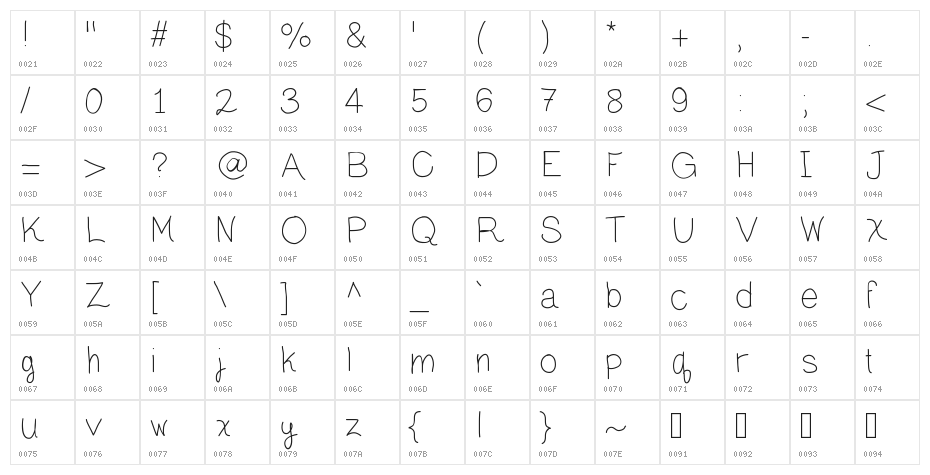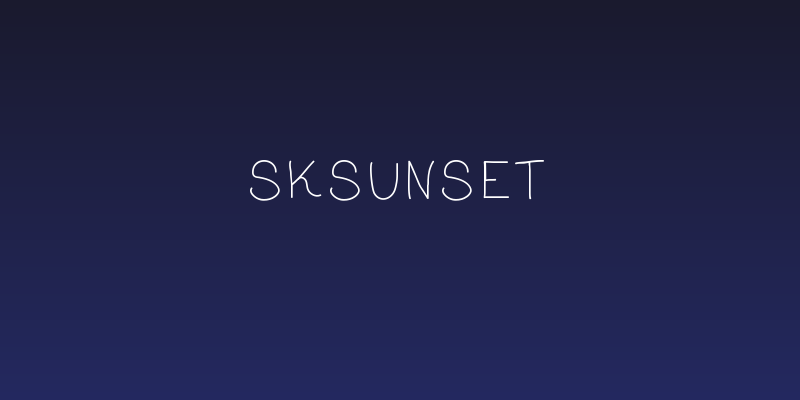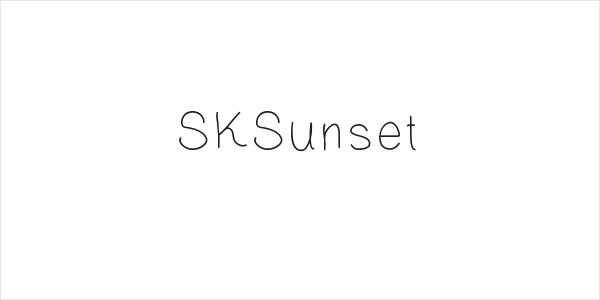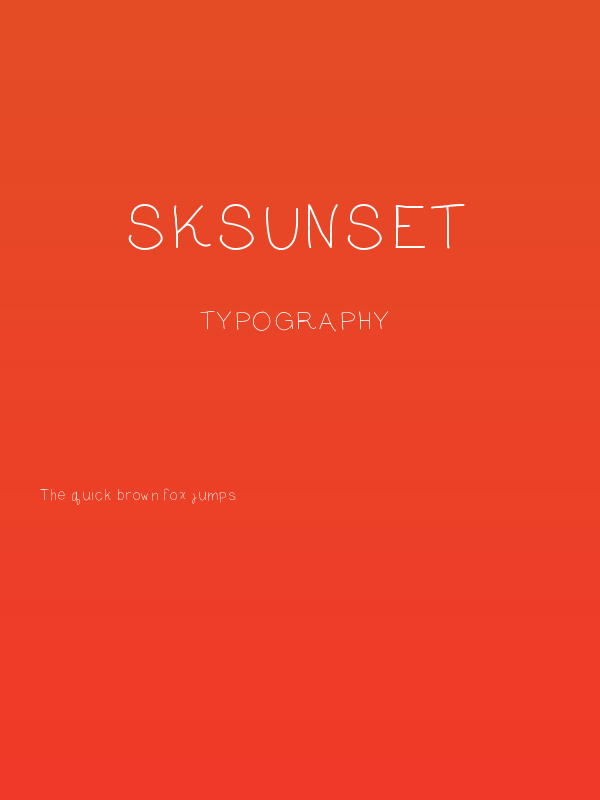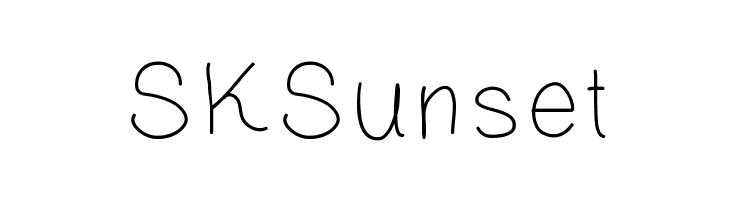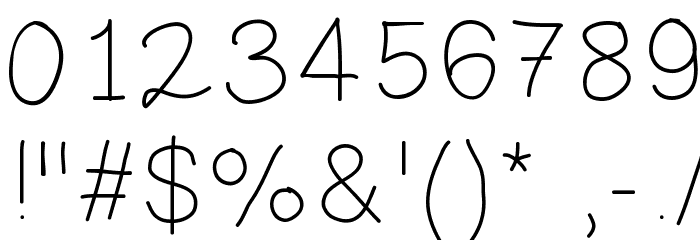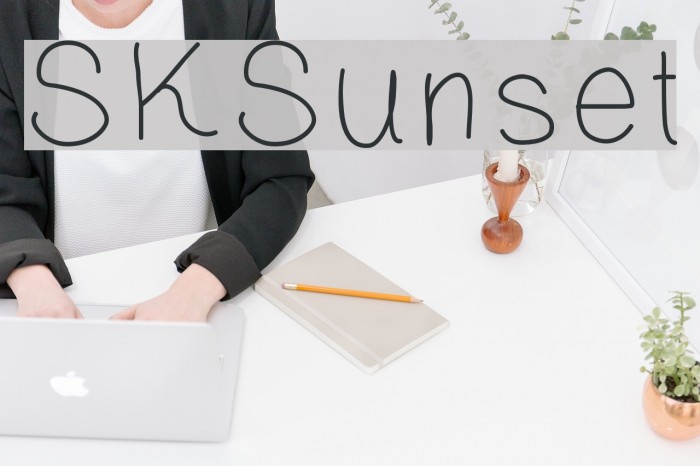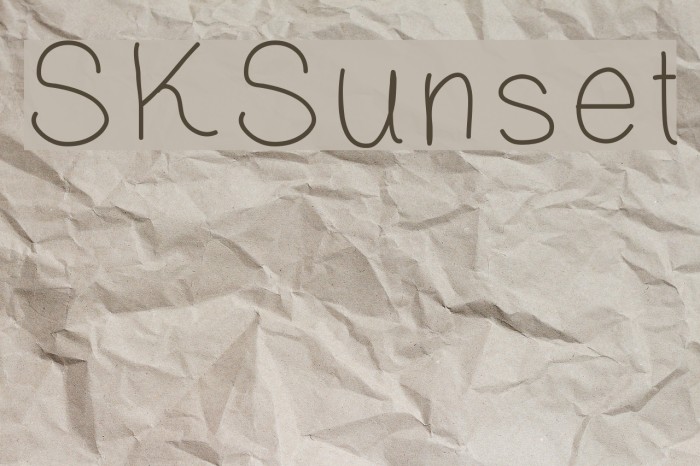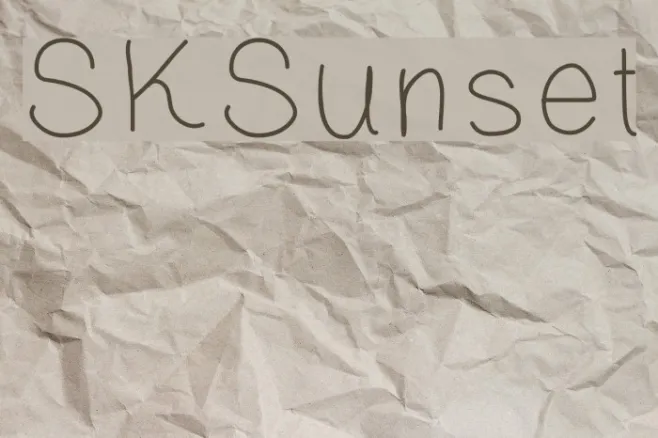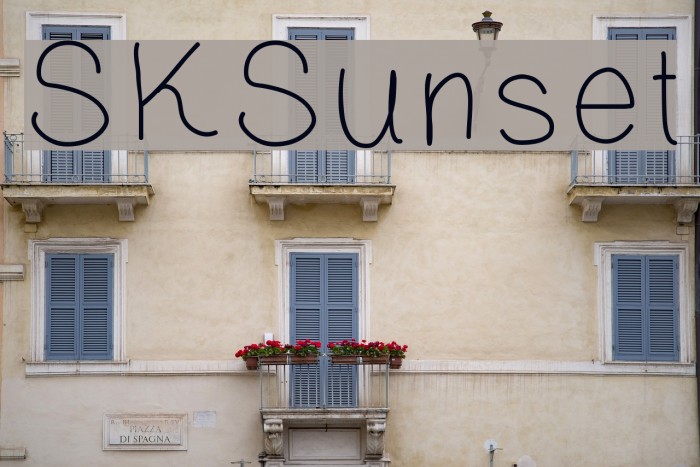
SKSunset Font
SKSunset Description
This font features a playful and casual handwritten style, characterized by its irregular strokes and whimsical curves. The letters have a slightly uneven baseline, adding to the informal and relaxed feel. The uppercase letters are tall and narrow, while the lowercase letters are more rounded and open. The numerals and special characters maintain the same playful aesthetic, making the font suitable for creative and informal projects. The overall appearance is friendly and approachable, with a touch of spontaneity.
| Use Case | Headlines, Logos, Informal Texts |
| Proposed Projects | Ideal for greeting cards, children's books, playful branding, and casual invitations. |